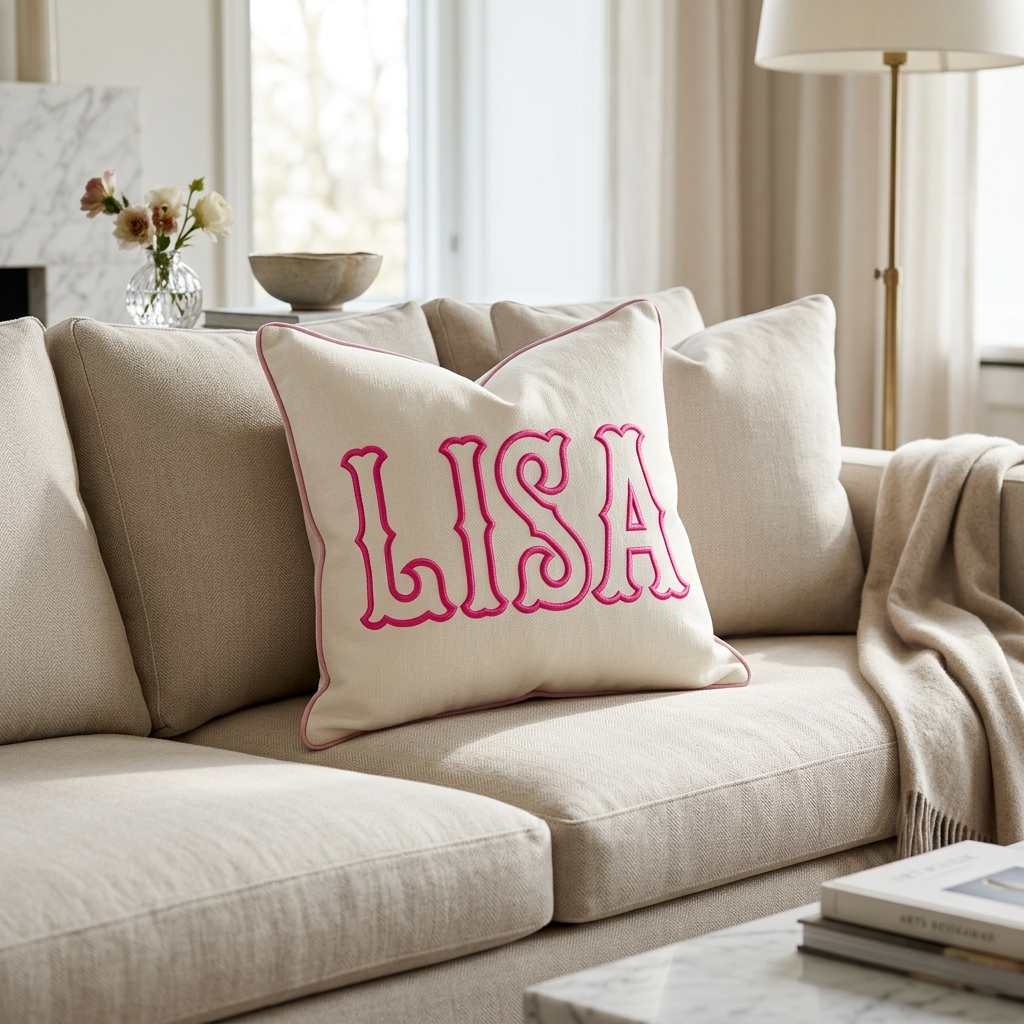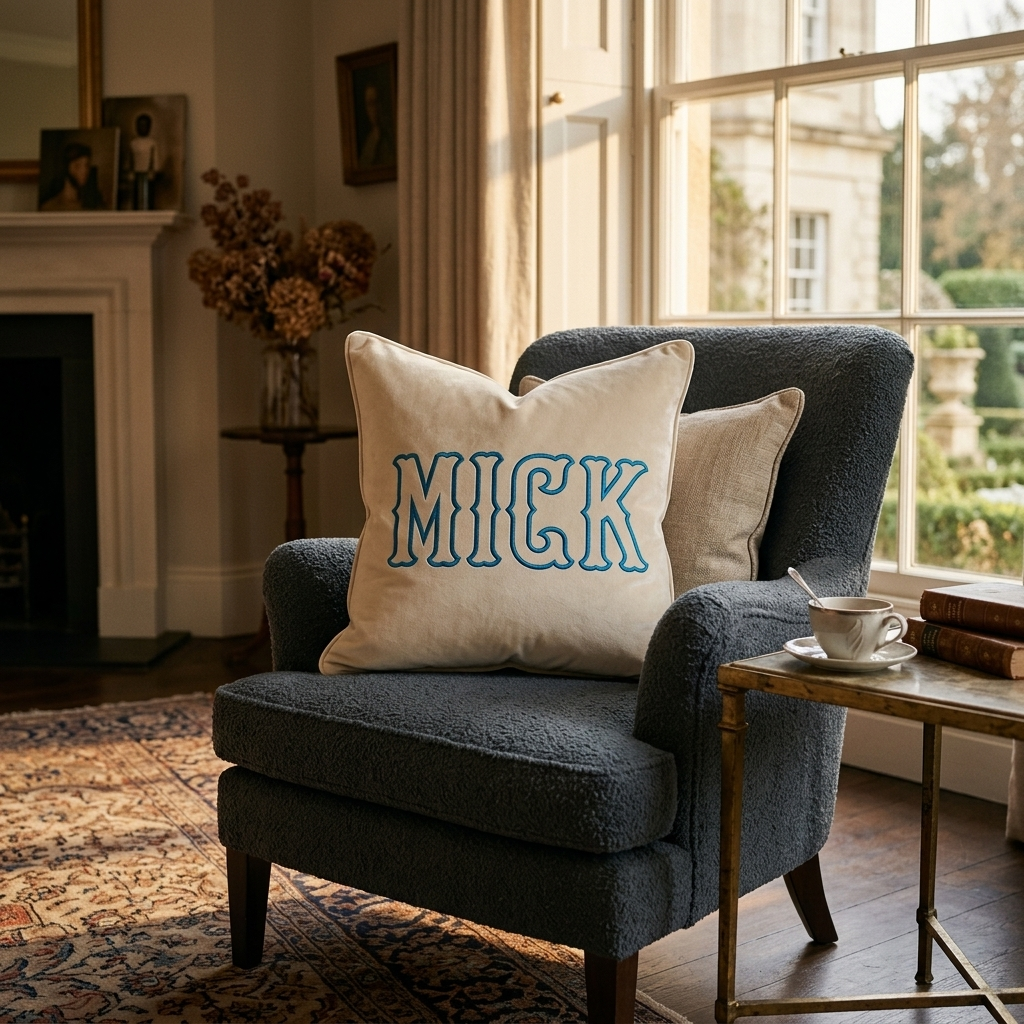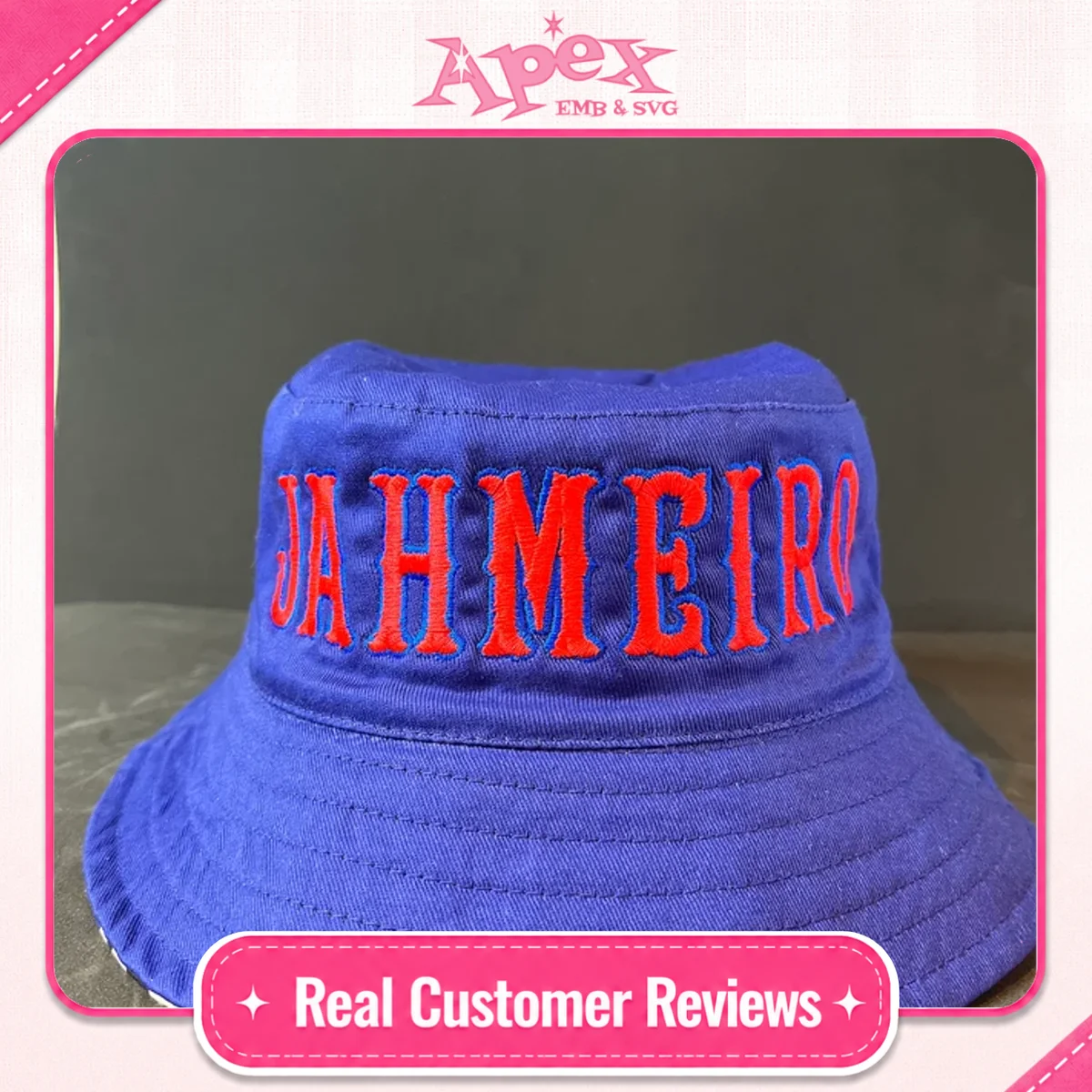
Tiffany Machine Embroidery Fonts
Vintage parlor elegance meets timeless collegiate distinction in our Tiffany Fishtail embroidery alphabet. Digitized by hand in our studio, each letterform channels the sculptural swagger of nineteenth-century decorative typography, balancing ornate split-serif tails with structured, commanding vertical stems. A luminous interior fill pairs seamlessly with crisp, dimensional two-color satin stitch outlines, catching light across the grain of fine textiles and transforming custom monogramming projects into treasured heirloom embroidery.
Project Ideas for Tiffany Machine Embroidery Fonts
The dual-color aesthetic and unmistakable vintage fishtail character bring undeniable presence to bespoke embroidery creations:
- Luxury Table Linens: Embroider contrasting two-tone monograms across crisp hemstitched dinner napkins, cocktail linens, and formal table runners to curate an unforgettable dining tablescape.
- Heirloom Bedding: Showcase single-initial heraldry or grand family initials across percale pillow shams, duvet centers, and linen bolster covers.
- Bespoke Resort Wear & Bridal Robes: Personalize lightweight cotton tunics, poolside linen button-downs, and bridal silk dressing gowns with refined, tailored lettering.
- Collegiate Outerwear & Blankets: Utilize the expansive applique formats across wool varsity letterman jackets, fleece pullovers, and stadium blankets for bold collegiate impact.
- Personalized Gifting: Elevate structured canvas tote bags, weekend travel duffels, baby blankets, and personalized holiday stockings with enduring decorative texture.
Thoughtful placement ensures flawless visual symmetry across every garment and home textile:
- Corner Diagonal: Position 3-inch or 4-inch monograms diagonally across linen cocktail napkins and pocket squares, placed precisely 1.5 to 2 inches from the outer hemline point.
- Center Chest: Frame 4-inch to 5-inch regular fill lettering directly over the center chest of sweatshirts, plush robes, and tailored pajama sets.
- Cuff & Lapel: Apply 3-inch initials along shirt cuffs, tailored collars, or pocket borders for understated, personalized bespoke charm.
- Full Back & Statement Borders: Center 10-inch to 14-inch applique letters across jacket yokes, throw blankets, or large pillow faces for unmistakable theatrical scale.
Tiffany Machine Embroidery Fonts Craft & Letterform Details
The Tiffany Fishtail silhouette finds its roots in historic maritime insignia and gilded-age stationery. Its signature pinched center waist expands outward into theatrical fluted finials, demanding expert digitizing to ensure flawless stitch execution. We sculpted every curve with calibrated stitch direction, preventing fabric distortion and eliminating unsightly gap runs between the filled body and the outer contour. In the smaller scales, tightly packed underlay anchors high-sheen satin borders that frame the vibrant inner fill. For the grander displays, our digitizers transitioned the architecture into refined applique embroidery, preserving fabric hand, drastically decreasing needle run times, and keeping expansive statement lettering supple on heirloom linens and heavyweight outerwear alike.